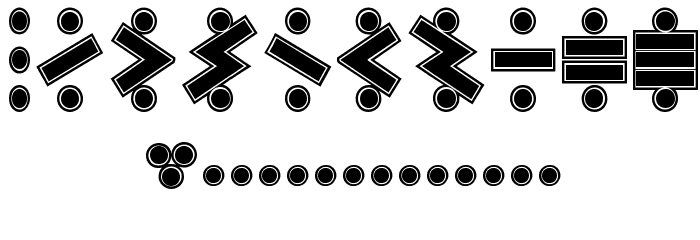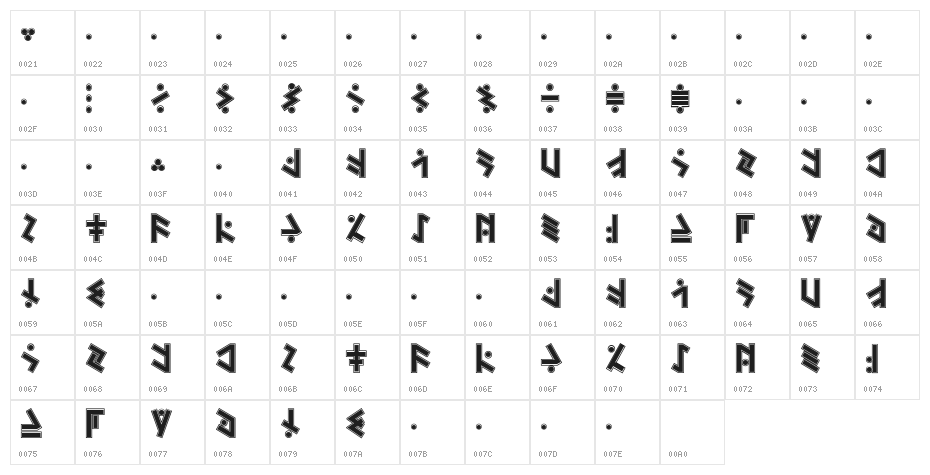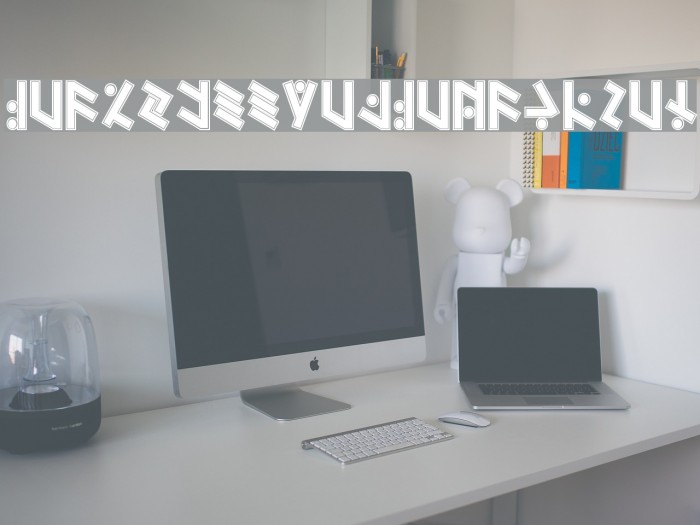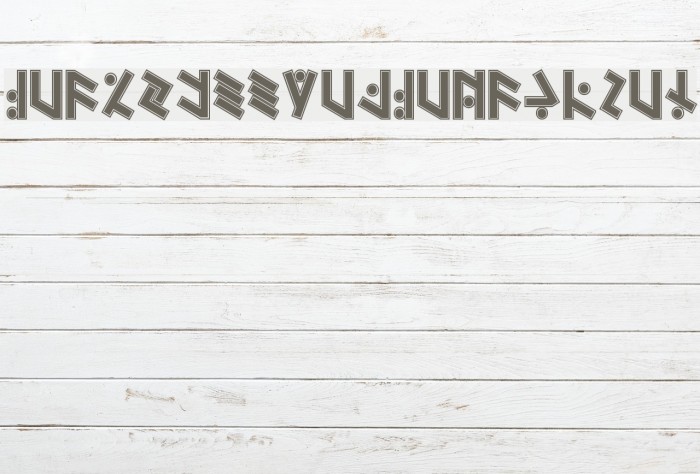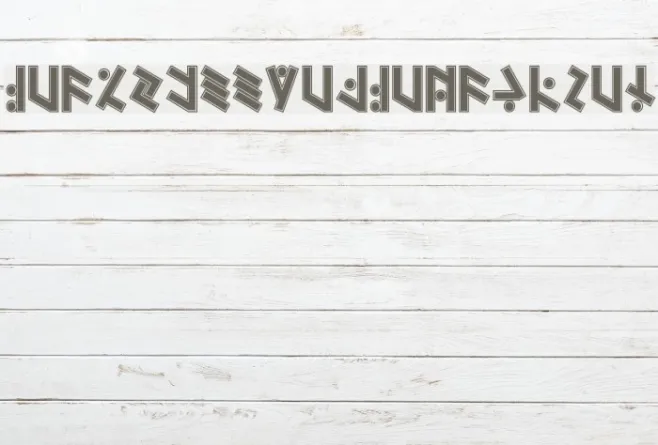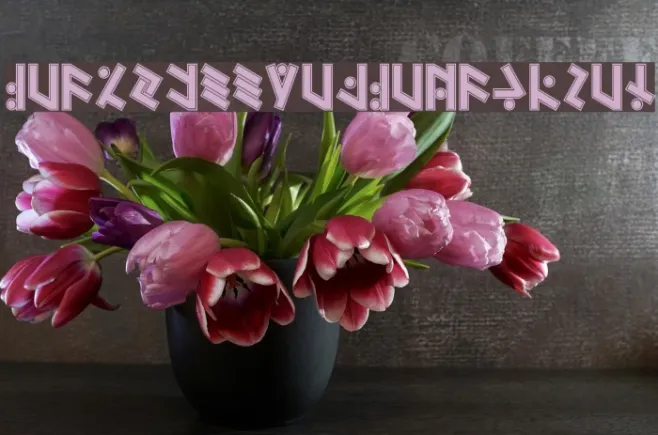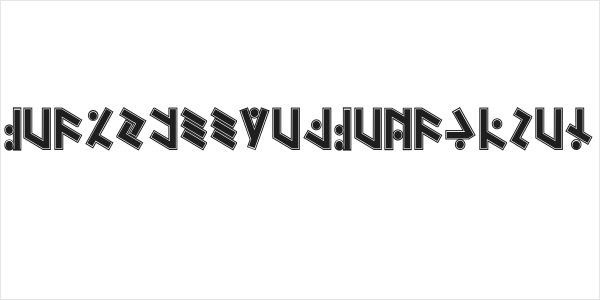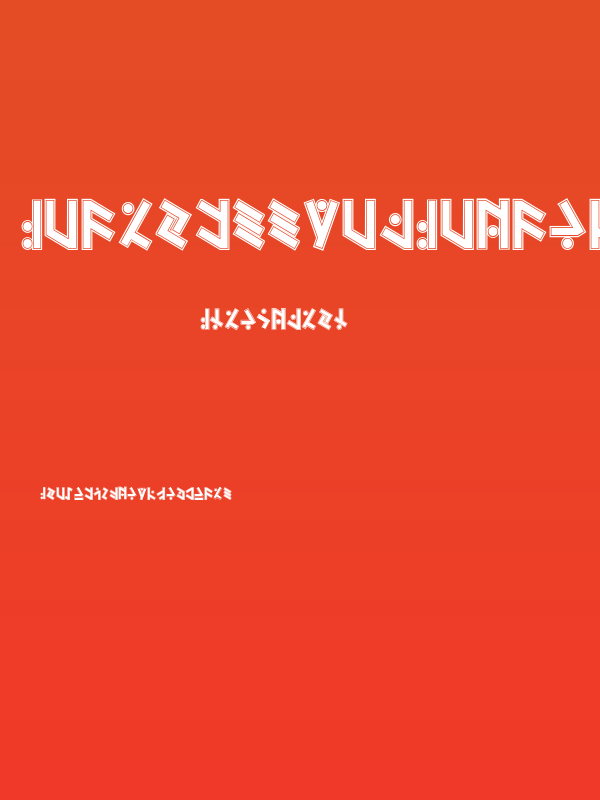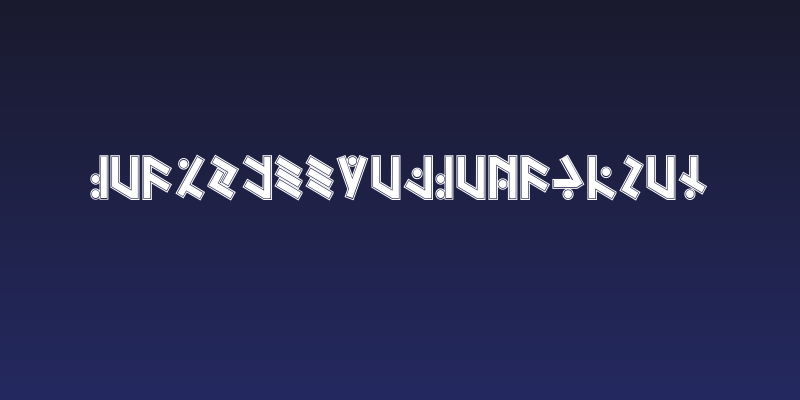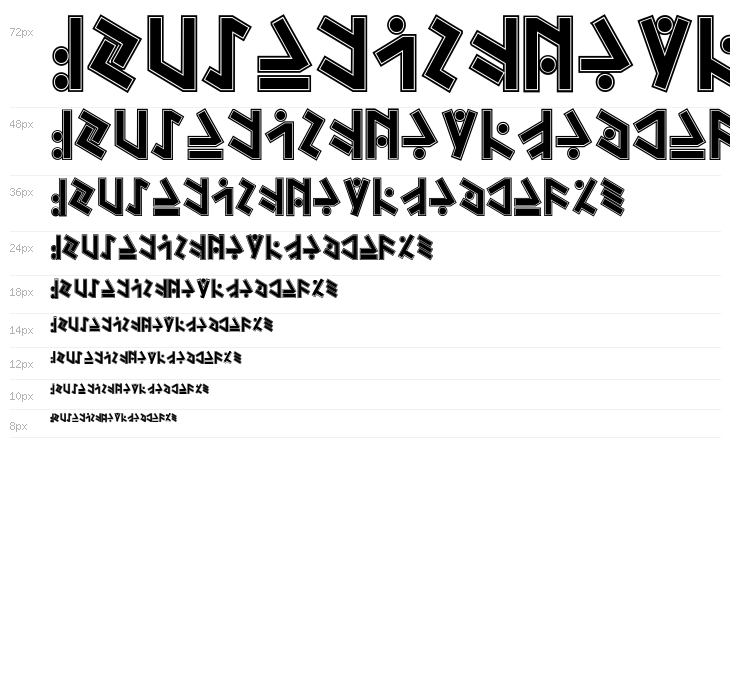
Temphis Sweatermonkey Font
Temphis Sweatermonkey Description
This font features a highly decorative and abstract design, characterized by geometric shapes and bold outlines. Each character is crafted with a unique combination of lines and circles, creating a futuristic and artistic appearance. The font lacks traditional letterforms, instead opting for a stylized and symbolic representation of characters. This design choice makes it stand out as a display font, suitable for creative and unconventional projects. The boldness of the characters is accentuated by the thick outlines, giving it a strong visual presence. The spacing between characters is consistent, maintaining a uniform look across the text. Overall, this font embodies a modern and avant-garde style, ideal for projects that require a distinctive and eye-catching typeface.
| Overall Style | Modern, Avant-garde |
| Use Case | Logos, Posters, Album covers |
| Proposed Projects | Ideal for album covers, posters, video game graphics, and any project seeking a futuristic and artistic touch. |